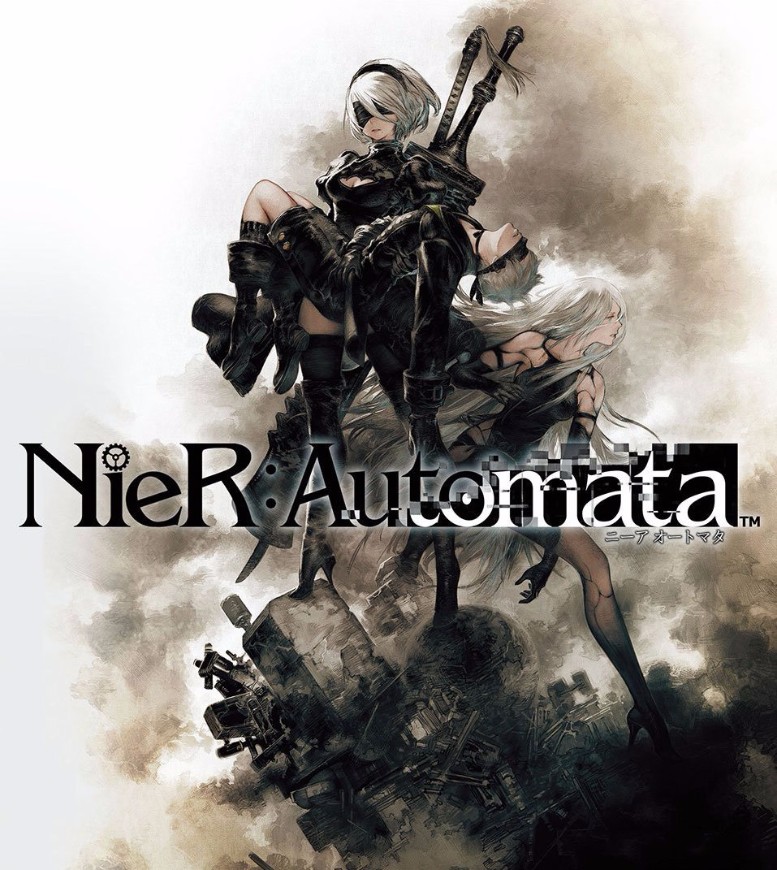
Nier: Automata Font
Fonts in UseNier: Automata is an action role-playing game developed by PlatinumGames and published by Square Enix. It was released for PlayStation 4 and PC in 2017, and later for Xbox One. The game takes place in a post-apocalyptic world and follows the story of Androids 2B, 9S, and A2 as they battle to reclaim Earth from machines.
The font used for the game logo in the box art is called ITC Benguiat Book, an art deco serif designed by Edward Benguiat. You can view and download the font here.